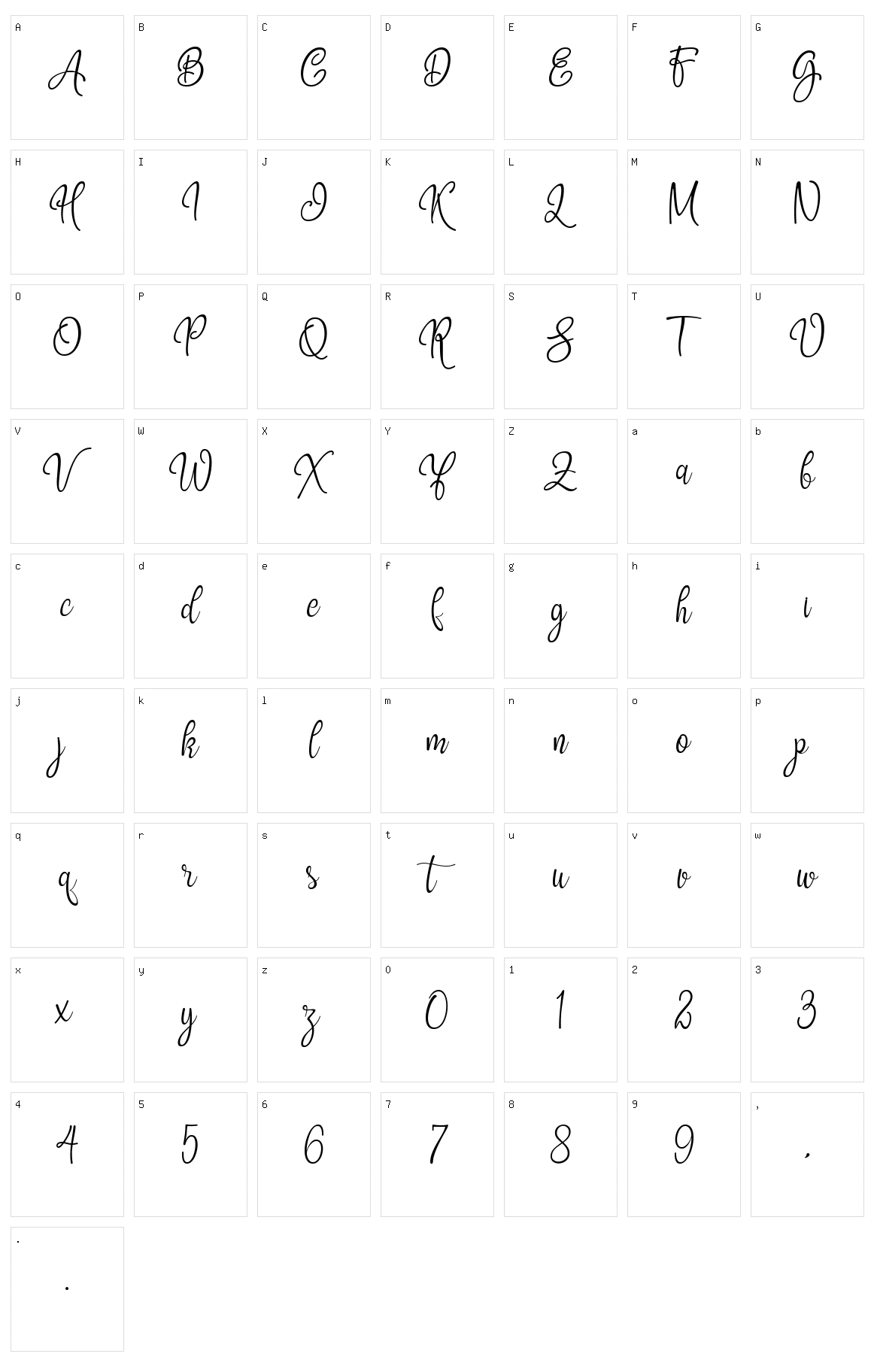
The free font Grookey Shawn is carefully designed by bijeh.studio, showcasing a thoughtful balance of creativity and usability and falls under the Script font style. When you download the ZIP file, it contains only 23.05 KB of font files, making it lightweight and quick to download. Please review the license details below to understand permitted usage and distribution rights. If license information is not available, we recommend using this font for personal projects only or contacting the author directly for commercial usage permissions.